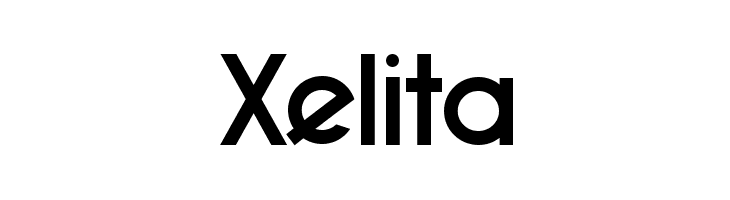
• Xelita schriftart
( Xerographer Fonts - Max Infeld - xerographer.blogspot.com )
A bold, geometric font with a modern and angular design.
• XelitaItalic schriftart
( Xerographer Fonts - Max Infeld - xerographer.blogspot.com )
A bold, italic font with a modern, geometric design and dynamic style.
• XelitaBold schriftart
( Xerographer Fonts - Max Infeld - xerographer.blogspot.com )
A bold, geometric font with a modern and striking design.